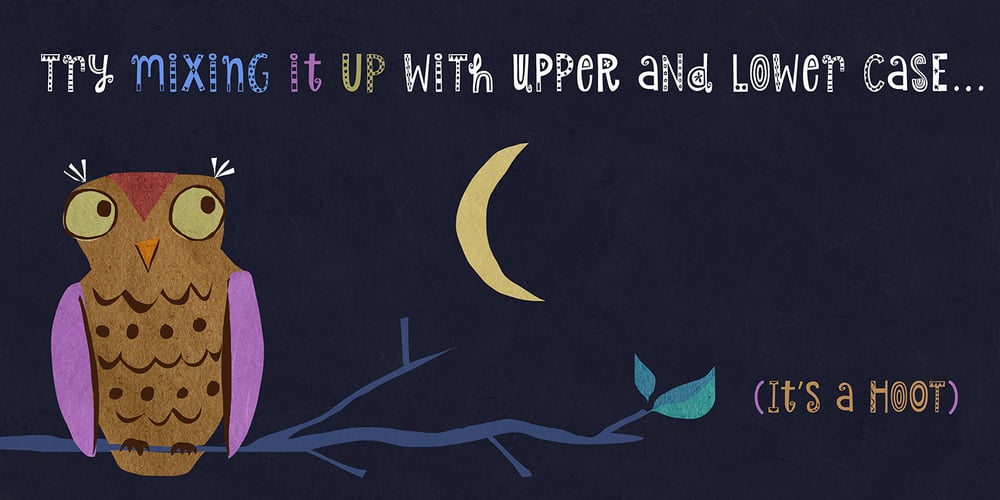
Lion Font Family was designed by Amy Dietrich and published by Atlantic Fonts. Lion contains 2 styles and family package options. Lion is playful, wild, and full of expression. Lion Solid is sans pattern, but just as brave. Mix upper and lower case with pride, and turn on double-letter ligatures for added hand-made presence. Shown in posters with other Atlantic fonts including Atlantic Doodles and Eeeek images.